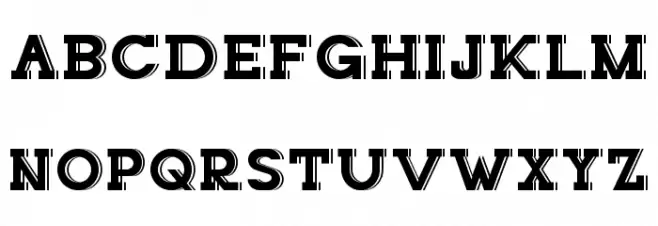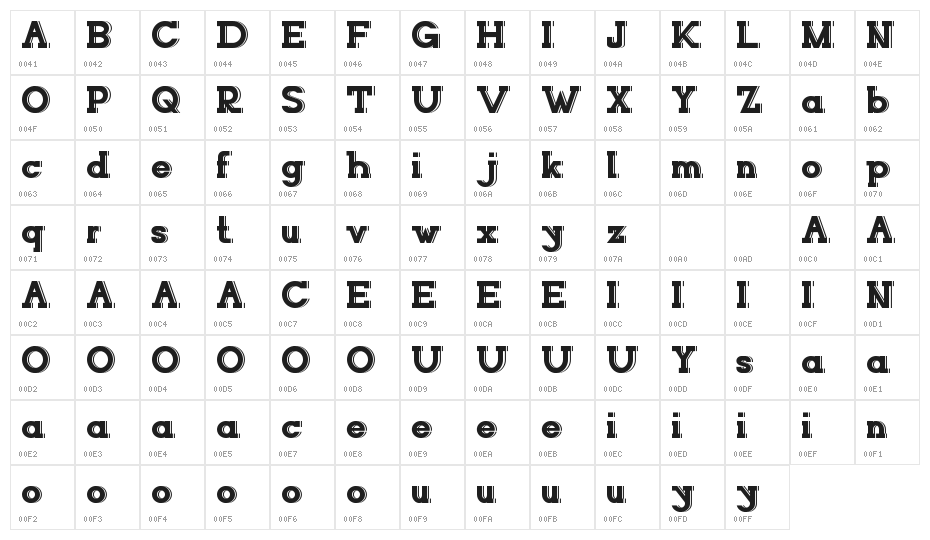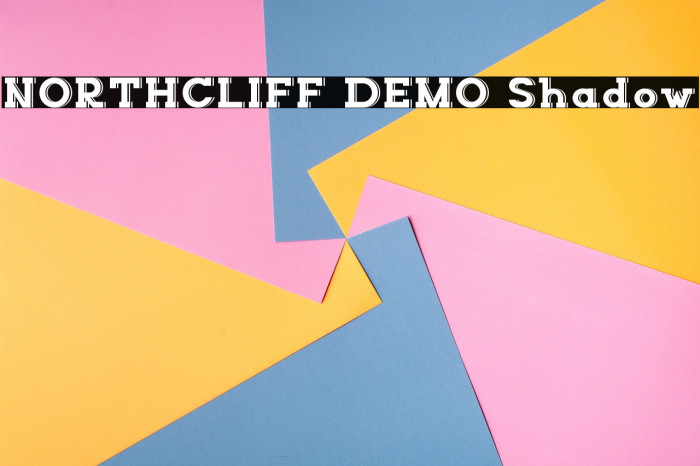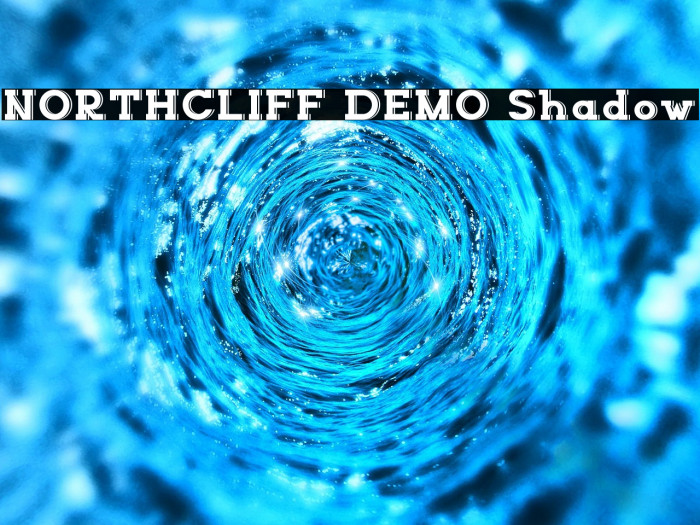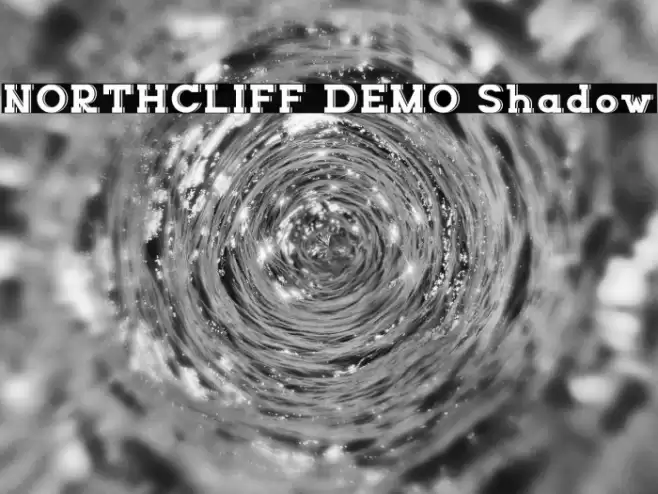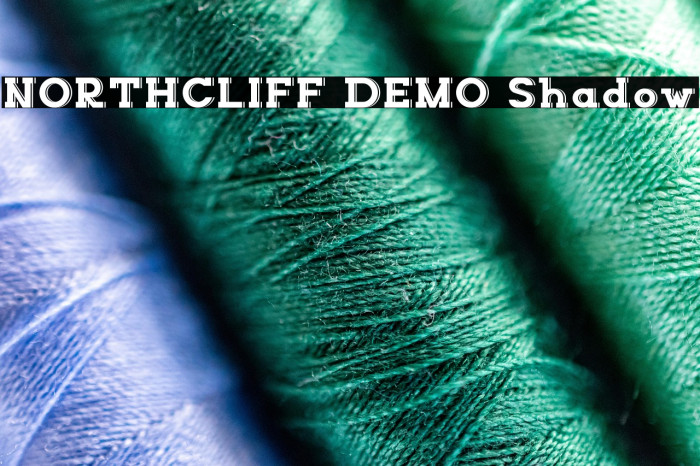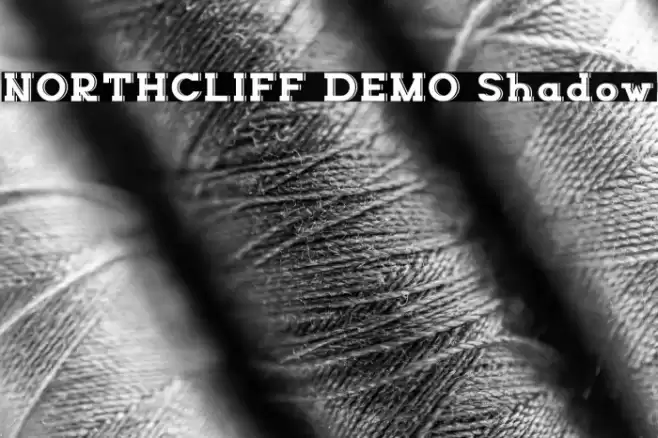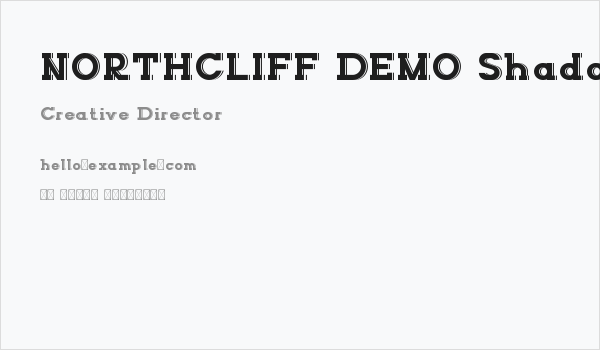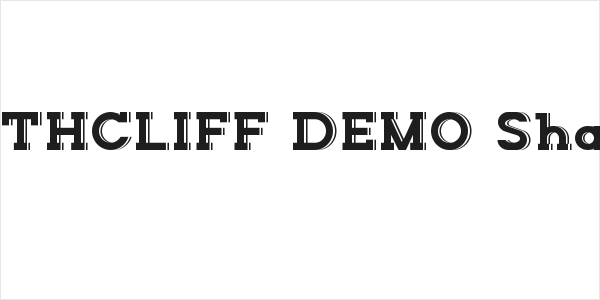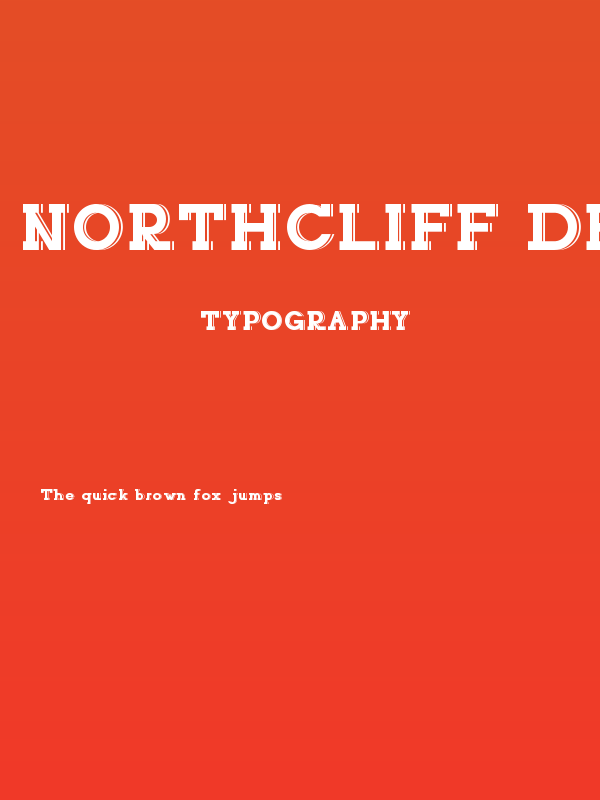
NORTHCLIFF DEMO Shadow Font
NORTHCLIFF DEMO Shadow Description
This font features a bold and striking design with a shadow effect that adds depth and dimension to each character. The uppercase and lowercase letters are crafted with a strong presence, making them ideal for attention-grabbing headlines and titles. The shadow effect gives the font a three-dimensional look, enhancing its visual impact. The characters are well-defined with clean lines and a consistent stroke width, providing a modern and stylish appearance. This font is perfect for projects that require a bold statement and a touch of creativity.
| Proposed Projects | Ideal for posters, logos, headlines, and any design needing a bold, eye-catching font. |